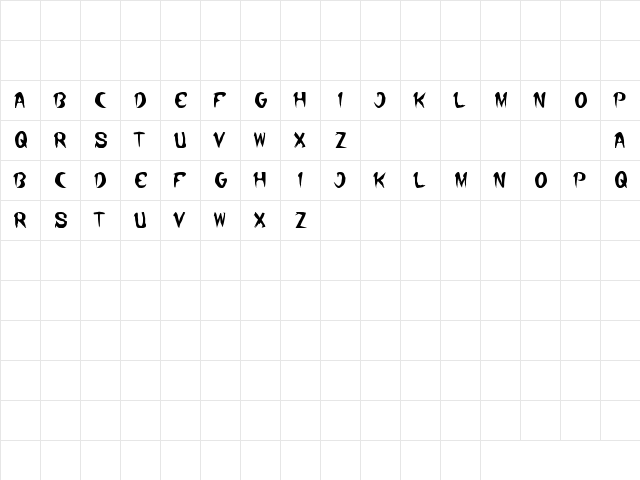
where wolf Regular
Design Context for where wolf Typeface
where wolf is a composed and adaptable typeface that performs quietly and consistently across a wide range of design contexts.